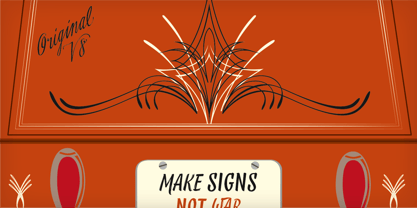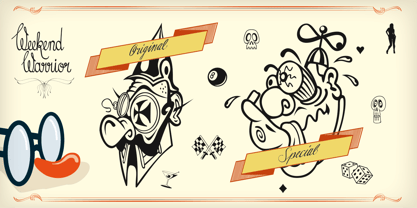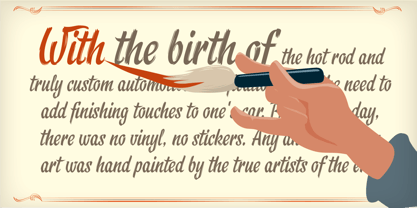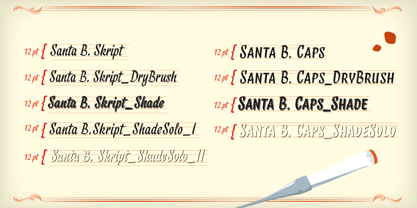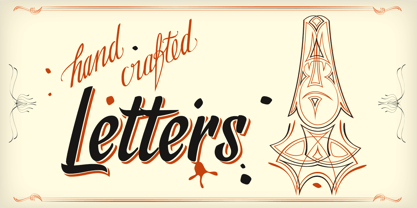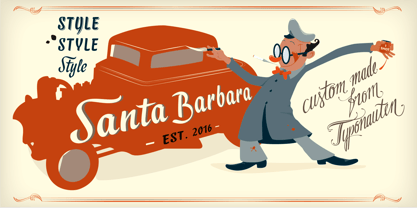
Santa Barbara Pro
by Die Typonauten
The Santa Barbara Pro Font Family was designed by Stefan Krömer and published by Die Typonauten. Santa Barbara Pro contains 12 styles and family package options. More about this family
Santa Barbara Pro is the new high-octane typeface for lovers of sign painting and pinstriping. Beside the mixed regular and caps figures, this font contains a wild bunch of extra styles, such as "dry brush" and "shade". All weights roll with alternative swash letters for more crafted impression. Pinstripes, catchwords and some weirdos perfect this red-hot old skool font in one shot.
Beware of the dry brush – try to keep it always wet! But better use this font!
Designers: Stefan Krömer
Foundry: Die Typonauten